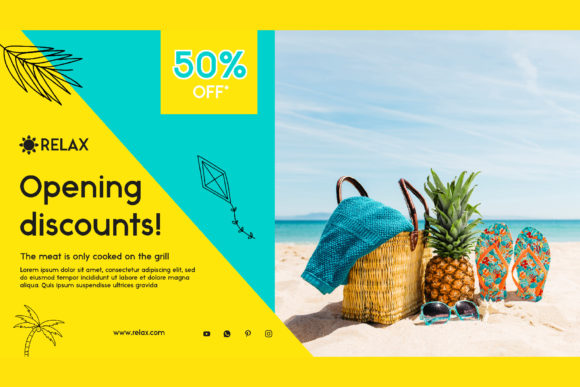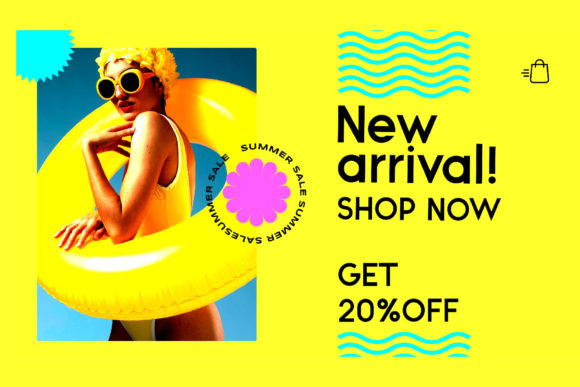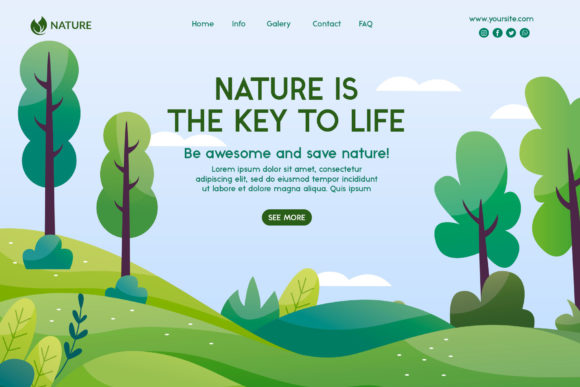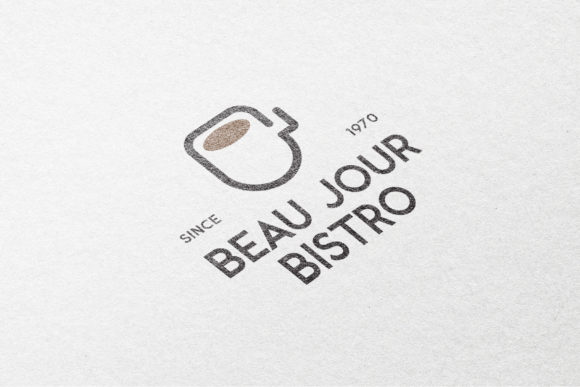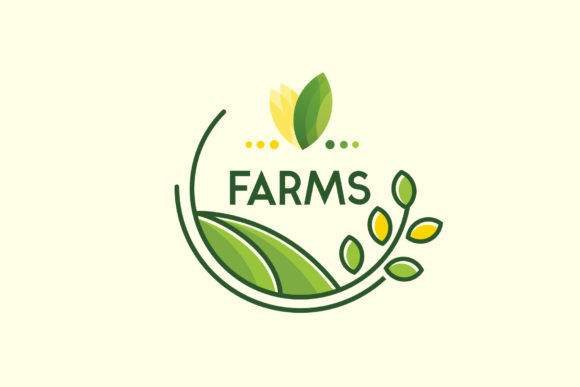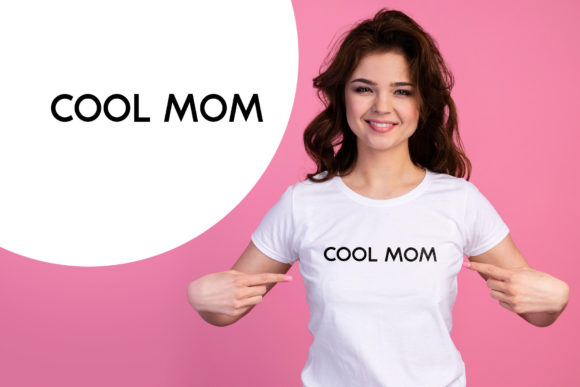
Introduction to Rove Font
Rove is a simple Sans Serif font.
But it can be used in a variety It can easily be matched to an incredibly large set of projects, so add it to your creative ideas and notice how it makes them stand out.
Key Features of Rove Font
Why Choose Rove Font?
Rove Font offers exceptional quality and versatility, making it a valuable addition to your design toolkit. Whether you’re creating for personal projects or commercial use, Rove Font delivers professional results.